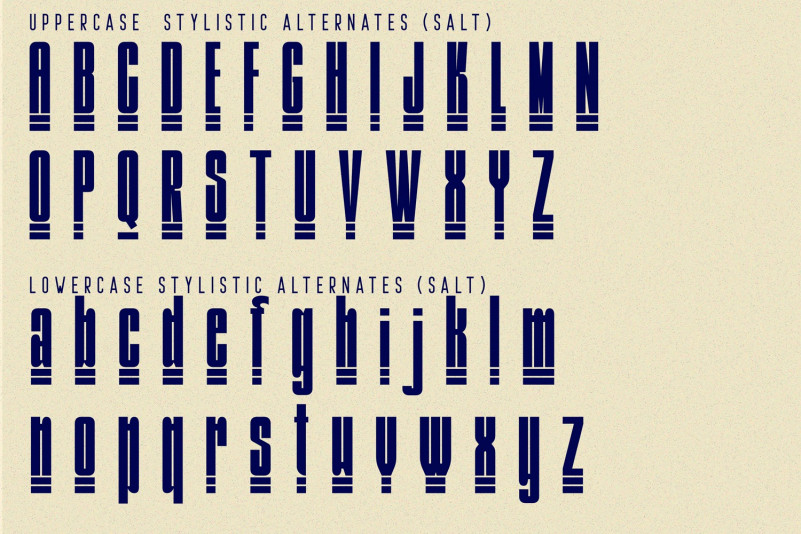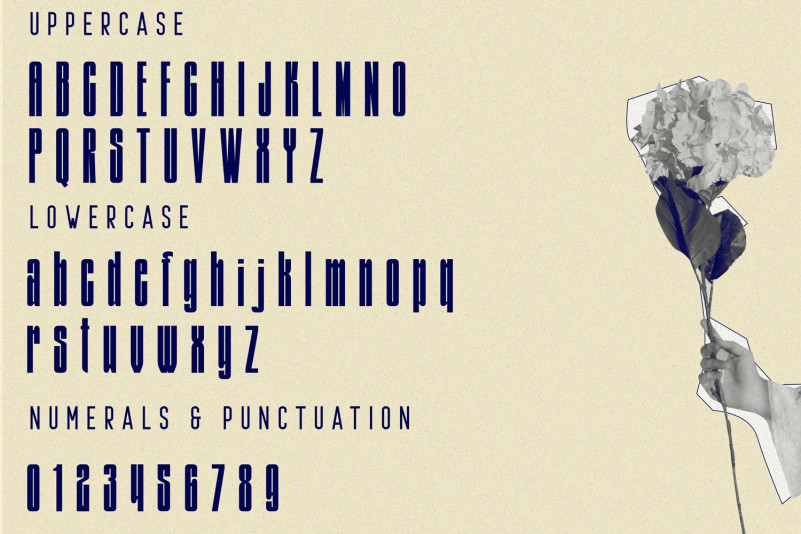
Eagle Sans Serif Font, Suitable for any design needs : logo, branding, modern advertising design, logos, poster quote, book / cover Title, editorial design, website / blog, card, t-shirts,…